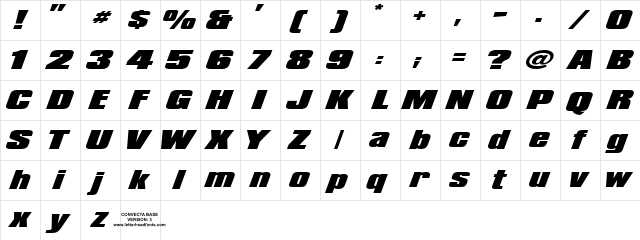
LHF Convecta BASE Regular
Design Context for LHF Convecta BASE Typeface
LHF Convecta BASE takes a measured approach to typography — its balanced proportions and neutral character make it a reliable workhorse for both digital and print work.